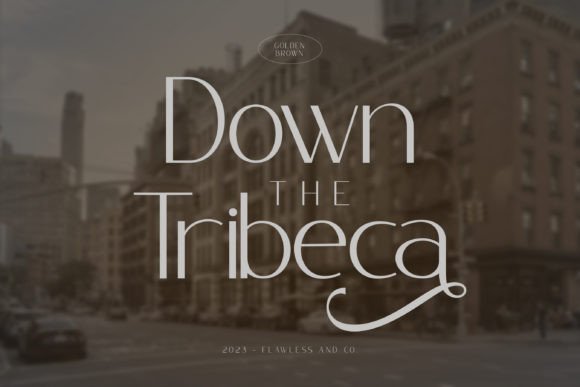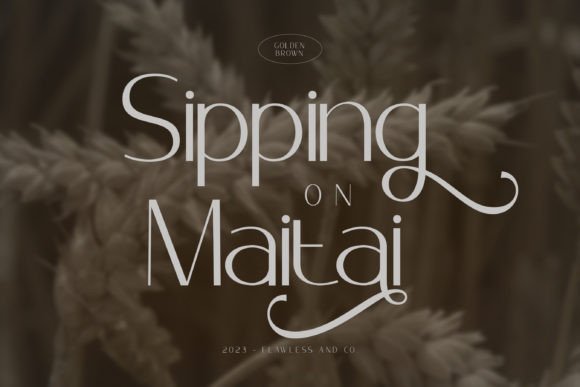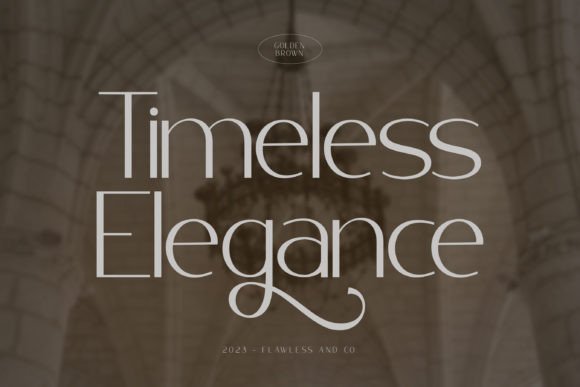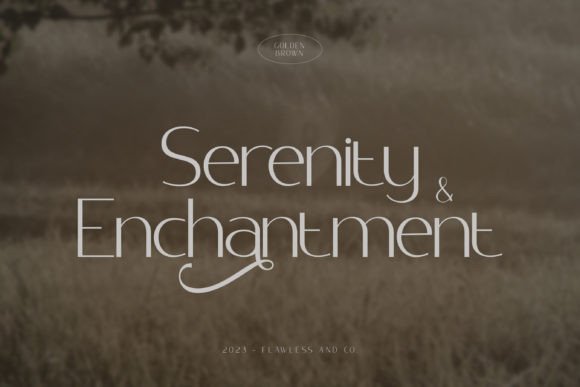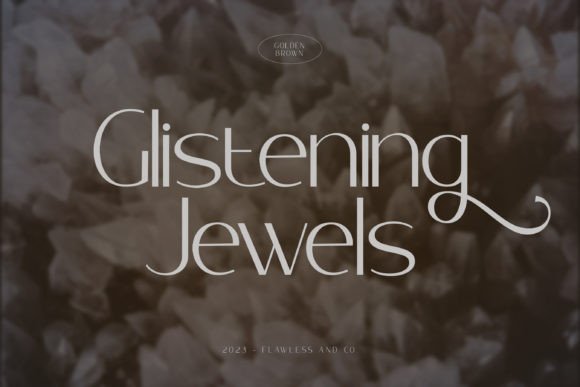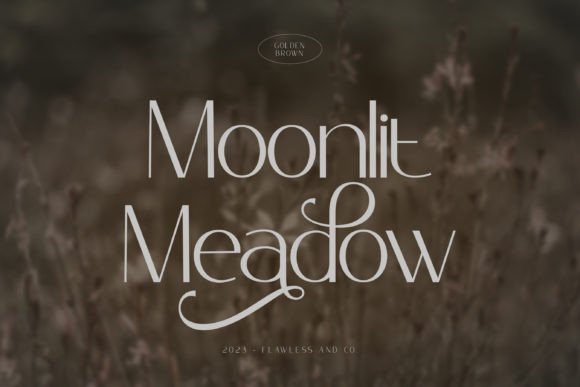
A Font that Shines like Gold: Introducing the Golden Brown Font
Do you remember that moment when you’re working on a design project, and you’re struggling to find the perfect font to convey your message? You scroll through endless options, but nothing seems to capture the essence of your vision. Well, those days are behind you with the introduction of the Golden Brown Font – an elegant sans serif font that’s about to become your new go-to choice.
This sophisticated font is more than just a pretty face; it’s a game-changer for designers. With its clean lines, versatile styling, and range of alternate characters and ligatures, the Golden Brown Font offers endless possibilities for creative expression. Whether you’re designing a logo, brochure, or website, this font is sure to elevate your design to new heights.
Golden Brown Font Key Features
- Font Family: Golden Brown Font is a unique, custom-designed font.
- Unique Characteristics: The Golden Brown Font features a warm, golden-brown color scheme, giving it a unique and eye-catching appearance.
Review of Golden Brown Font
Overall, I think the Golden Brown Font has some great qualities that make it a solid choice for certain designs. ✨ Its warm, earthy tone evokes a sense of nostalgia and coziness, making it perfect for projects that require a homey feel. The font’s curves are smooth and elegant, adding a touch of sophistication to any text.
- ✨ The font’s unique tone and curves make it stand out in a crowd, adding a personal touch to designs.
- ✨ The font is highly legible, even at smaller font sizes, making it perfect for body text or headings.
- ✨ The font’s earthy tone pairs well with natural textures and patterns, creating a cohesive and harmonious design.
However, I do have a few concerns with the font. ⚠️ The font’s weight and spacing can be a bit inconsistent, which may affect its overall readability. Additionally, the font may not be the best choice for modern or minimalist designs, as its warm tone can come across as too playful or old-fashioned.
Overall, I would give the Golden Brown Font 3.5 out of 5 stars. While it has some great qualities that make it perfect for certain designs, its limitations hold it back from being a top choice for all projects. With some adjustments to its weight and spacing, I think the Golden Brown Font could be a real winner.
The Golden Brown font is ideal for creating warm and inviting designs, such as:
- Restaurant menus and signage
Remember to use the Golden Brown font consistently throughout your design to create a cohesive and professional look.